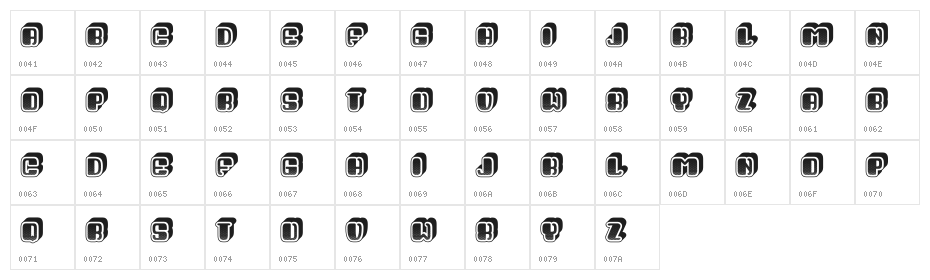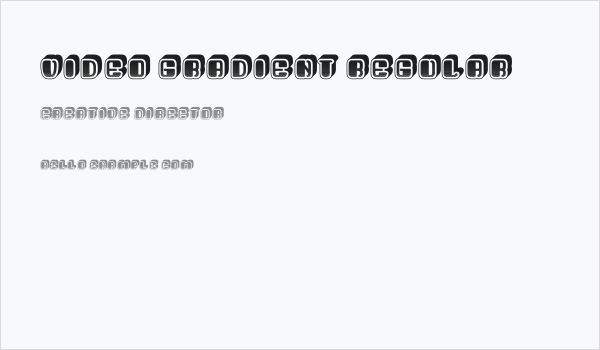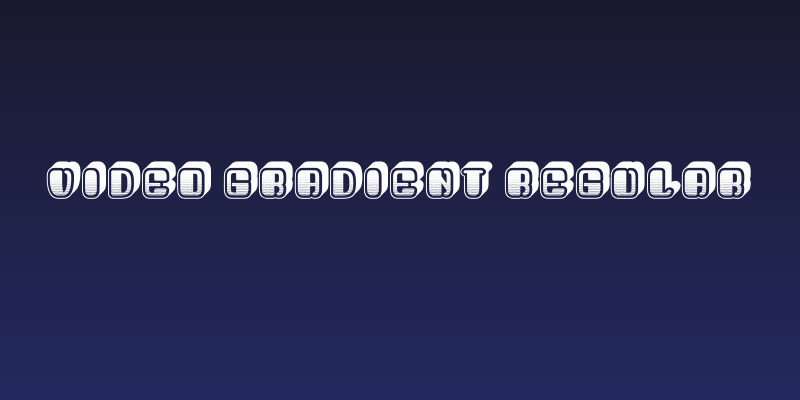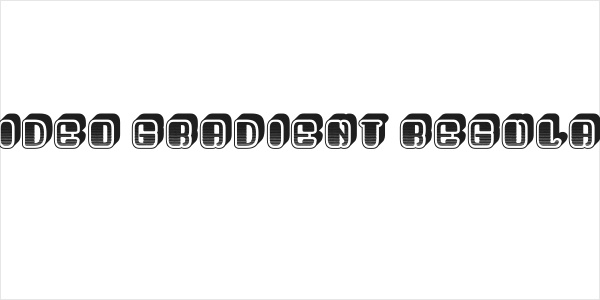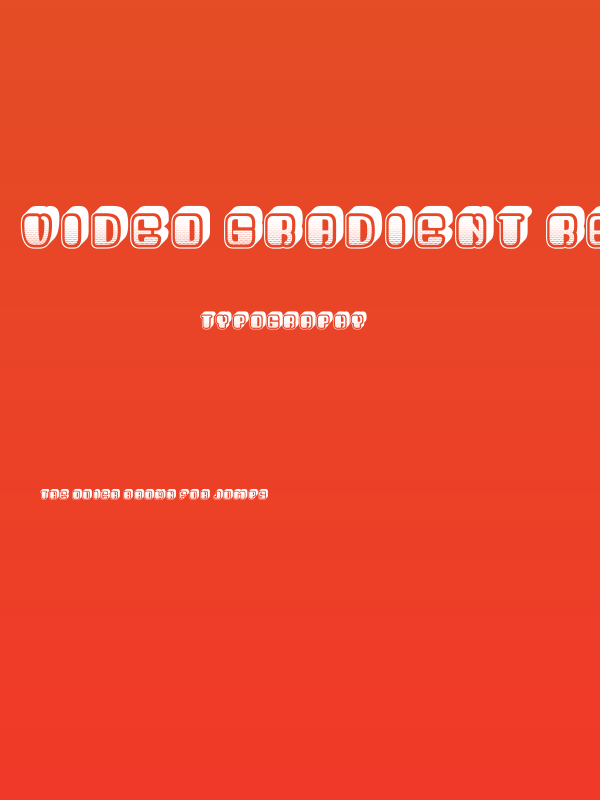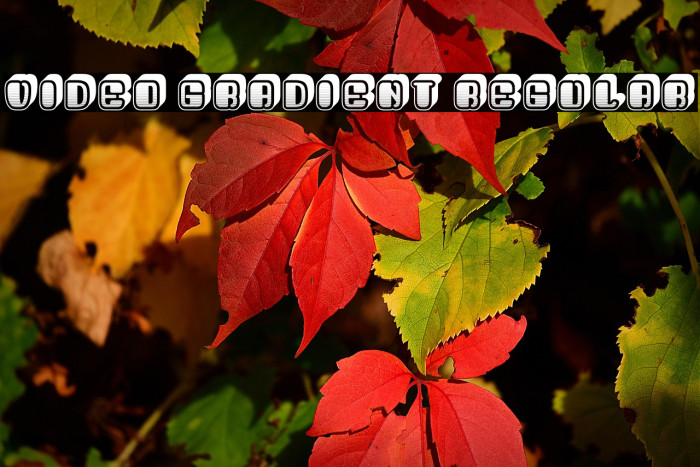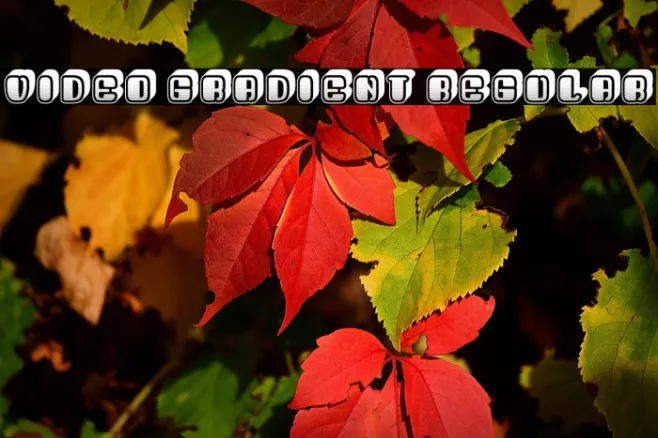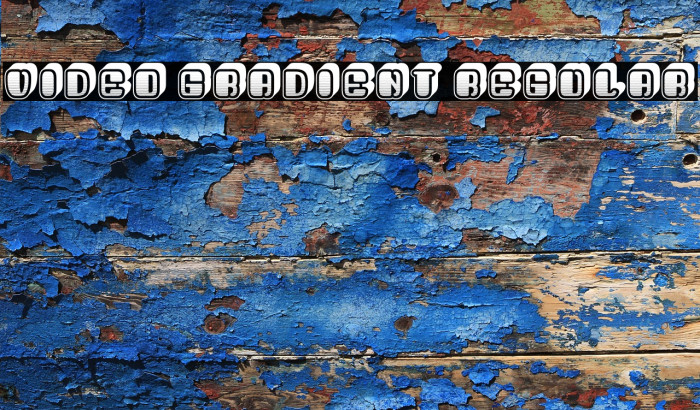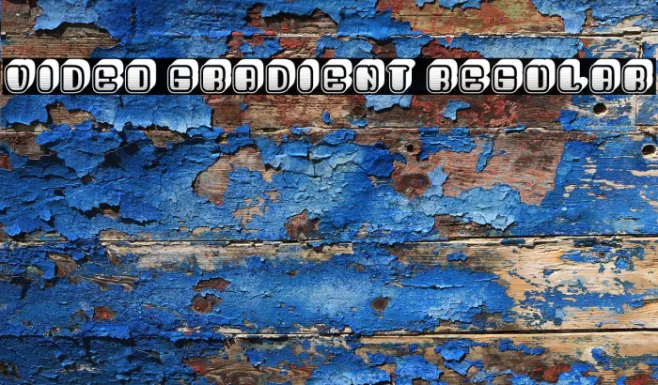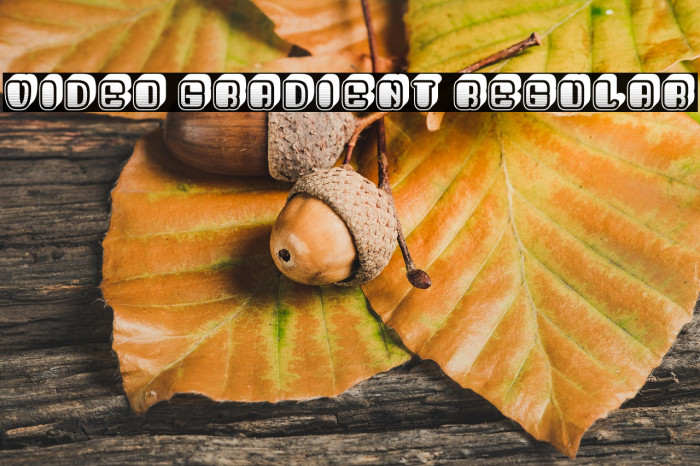
Video Gradient Regular Font
Video Gradient Regular Description
This font features a bold, decorative style with a unique gradient effect that gives it a three-dimensional appearance. Each character is enclosed in a thick outline, enhancing its visibility and impact. The interior of the letters is filled with a halftone pattern, adding texture and depth. The overall design is modern and eye-catching, making it suitable for projects that require a strong visual presence. The uppercase letters are consistent in height and width, contributing to a uniform and structured look. This font is ideal for creative and dynamic designs, where a bold statement is needed.